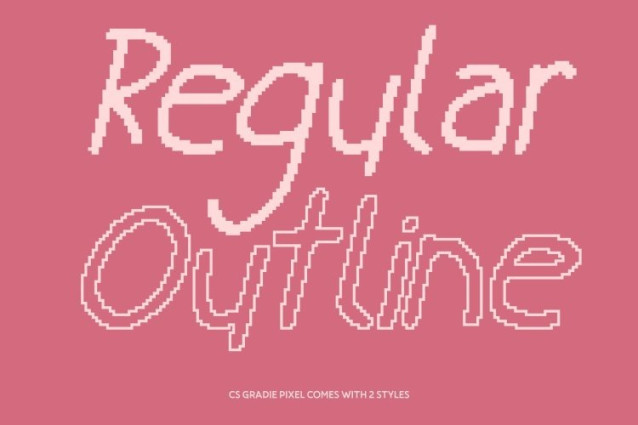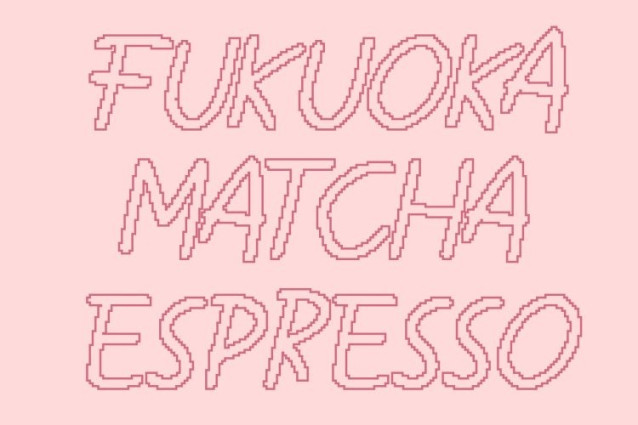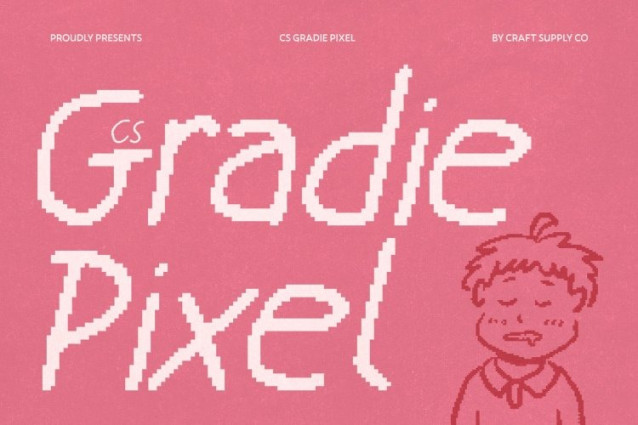
CS Gradie Pixel Font
CS Gradie Pixel Font This is a handwriting-inspired display font that captures the warmth, spontaneity, and imperfect charm of real pen strokes, refined with subtle pixel detailing. Designed with a hint of kid-like messiness, it delivers an authentic handwritten feel full of personality and youthful energy. Each letter embraces natural movement and playful imperfection, perfect for adding a friendly, expressive, handcrafted touch to your designs.
Warm Pixel Strokes for a Genuine, Approachable Look
Organic pen-style strokes give ta deeply personal and welcoming presence. The casual, flowing lines feel natural and sincere, making any text look heartfelt and expressive. This warmth enhances relatability and creative engagement, ideal for projects that celebrate authenticity and approachable style.
Kid-Like Messiness for Fun and Creative Energy
The font’s playful imperfections slightly messy shapes, lively curves, and spontaneous strokes bring childlike charm and imagination to every composition. This whimsical pixel refinement injects joy, creativity, and movement, evoking the carefree spirit of children’s writing.
Perfect for Children’s Designs, Playful Projects, and Expressive Branding
This font shines in kids’ projects, playful branding, greeting cards, posters, quotes, and social media visuals. It’s ideal for cheerful titles, expressive messages, kid-themed graphics, or any layout that needs warmth, personality, and whimsical digital flair.